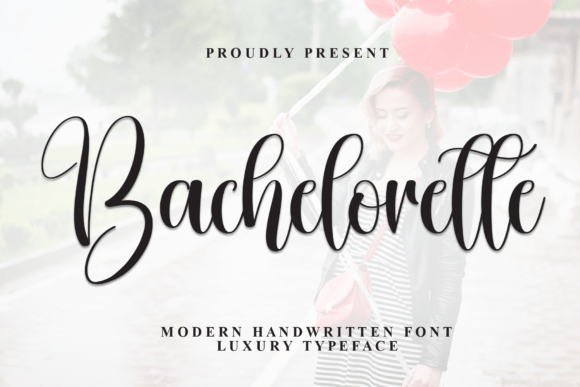
The Perfect Font for Every Special Moment
Have you ever been in the midst of a creative storm, surrounded by papers, pens, and endless ideas, only to have a single font whisper its way into your heart and change everything? That’s exactly what happened to many designers who fell in love with the Bachelorette Font.
This elegant and charming font is the perfect companion for any design project that requires a touch of handwritten elegance. From wedding invitations to business cards, Bachelorette Font adds a personal and sophisticated touch that leaves a lasting impression. Its versatility and charm make it a valuable asset for designers looking to elevate their designs and create something truly special.
Bachelorette Font Key Features
- Unique Characteristics: The font features a unique, cursive script style with a touch of elegance and sophistication, making it perfect for wedding and event invitations, stationery, and other special occasions.
- Style Variations: The font comes in multiple style variations, including Regular, Italic, Bold, and Bold Italic, allowing designers to add depth and emphasis to their designs.
Bachelorette Font Review
Overall, I think the Bachelorette Font is a lovely addition to any design project. It has a whimsical, vintage feel that’s perfect for feminine-themed designs.
- Soft, elegant curves make it perfect for wedding invitations, blog headers, or other delicate text.
- It’s highly legible, even at small font sizes, making it a great choice for body text.
- Its light weight gives it a airy feel, ideal for creating a sense of space in your design.
- It may not be the best choice for bold, attention-grabbing headlines, as it can come across as a bit too delicate.
- Some letters may not be easily distinguishable, especially at small font sizes, which could lead to readability issues.
In conclusion, the Bachelorette Font is a charming choice for designers looking to create a soft, feminine aesthetic. While it may have some limitations, its unique charm and elegance make it a great addition to any design project.